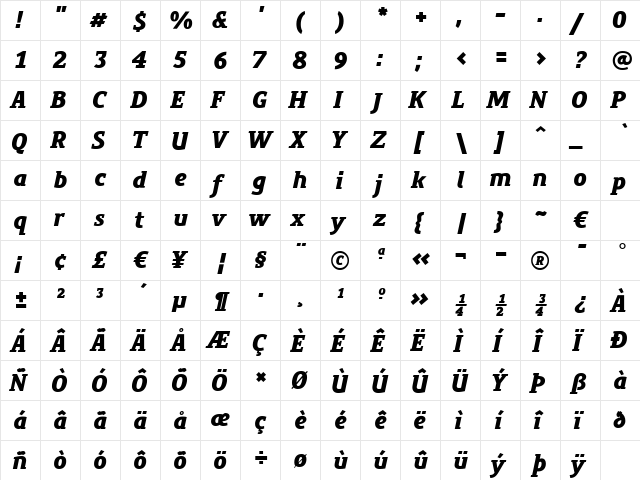
PreciousSerifUltraBlackItalic Regular
Design Context for PreciousSerifUltraBlackItalic Typeface
PreciousSerifUltraBlackItalic carries the refined structure of traditional serif typography, with bracketed terminals and considered proportions that communicate credibility and craft. The slanted form adds forward momentum and visual energy.
Pro Tip: Use PreciousSerifUltraBlackItalic for editorial body copy and considered headline work. Pair with a neutral sans for UI elements or captions to create a classic hierarchy.